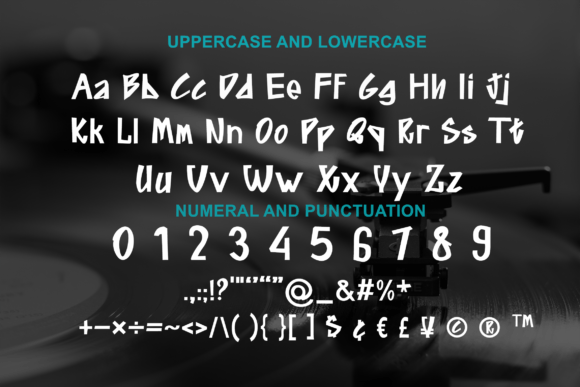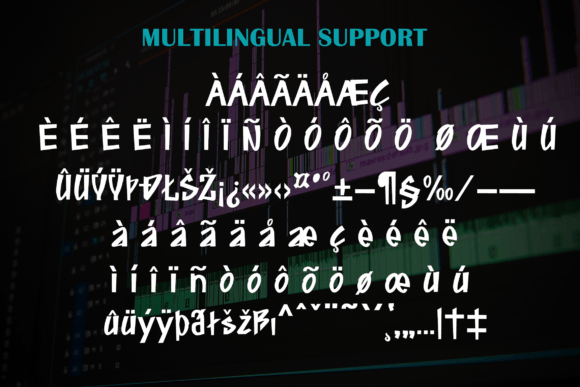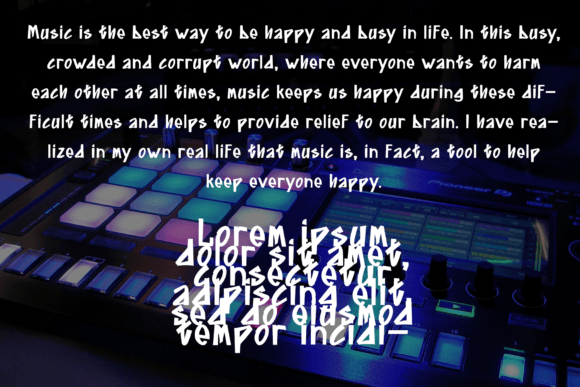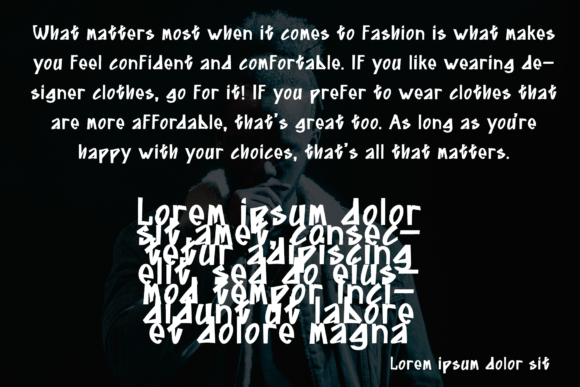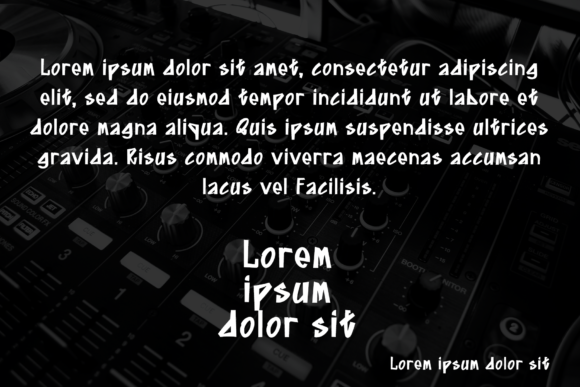
Introducing Black Mother Font: The Perfect Blend of Playfulness and Sophistication
In the world of typography, fonts play a crucial role in conveying the tone and personality of a design. For designers and crafters looking for a font that exudes a sense of playfulness and sophistication, Black Mother Font is an excellent choice. Inspired by the world of music, this sans serif font is perfect for any musical-themed, jazzy design that requires a touch of urban flair.
The Inspiration Behind Black Mother Font
Black Mother Font draws its inspiration from the vibrant and dynamic world of music. The font’s design is influenced by the casual and playful feel of musical performances, making it an ideal choice for designers looking to add a touch of personality to their work. Whether you’re working on a project that requires a bold and eye-catching headline or a font that can add a touch of whimsy to your design, Black Mother Font is the perfect choice.
Key Features of Black Mother Font
So, what makes Black Mother Font stand out from the rest? Here are some of its key features:
- Playful and Casual Design: Black Mother Font boasts a playful and casual design that’s perfect for adding a touch of personality to your work.
- Sans Serif Font: The font’s sans serif design makes it easy to read and versatile enough to be used in a variety of design applications.
- Musical Theme: The font’s musical theme makes it perfect for any design project that requires a touch of jazz and urban flair.
- Urban and Modern: Black Mother Font’s urban and modern design makes it suitable for a wide range of design applications, from branding and advertising to book covers and event materials.
Use Cases for Black Mother Font
Black Mother Font is a versatile font that can be used in a variety of design applications. Here are some use cases where the font can shine:
- Branding: Use Black Mother Font to add a touch of personality to your brand’s identity.
- Urban Design: The font’s urban and modern design makes it perfect for urban design projects, such as posters, flyers, and brochures.
- Modern Advertising Design: Black Mother Font is suitable for modern advertising design projects that require a bold and eye-catching font.
- Book/Cover Title: Use the font to add a touch of whimsy to your book cover or title design.
- Special Events: Black Mother Font is perfect for designing event materials, such as posters, flyers, and invitations.
- Adventures: The font’s playful and casual design makes it suitable for designing materials for outdoor enthusiasts, such as hiking or travel brochures.
- Headlines: Use Black Mother Font to add a touch of personality to your headlines and titles.
- Clothing: The font’s urban and modern design makes it perfect for designing clothing labels, tags, and packaging.
Why Choose Black Mother Font?
So, why should you choose Black Mother Font for your design project? Here are some reasons:
- Unique Design: Black Mother Font boasts a unique design that’s sure to make your project stand out.
- Versatility: The font’s versatility makes it suitable for a wide range of design applications.
- Easy to Read: The font’s sans serif design makes it easy to read, even at small sizes.
- High-Quality: Black Mother Font is a high-quality font that’s designed to deliver exceptional results.
In conclusion, Black Mother Font is an excellent choice for designers and crafters looking for a font that exudes a sense of playfulness and sophistication. Its unique design, versatility, and ease of use make it perfect for a wide range of design applications. Whether you’re working on a musical-themed project or a design that requires a touch of urban flair, Black Mother Font is the perfect choice.